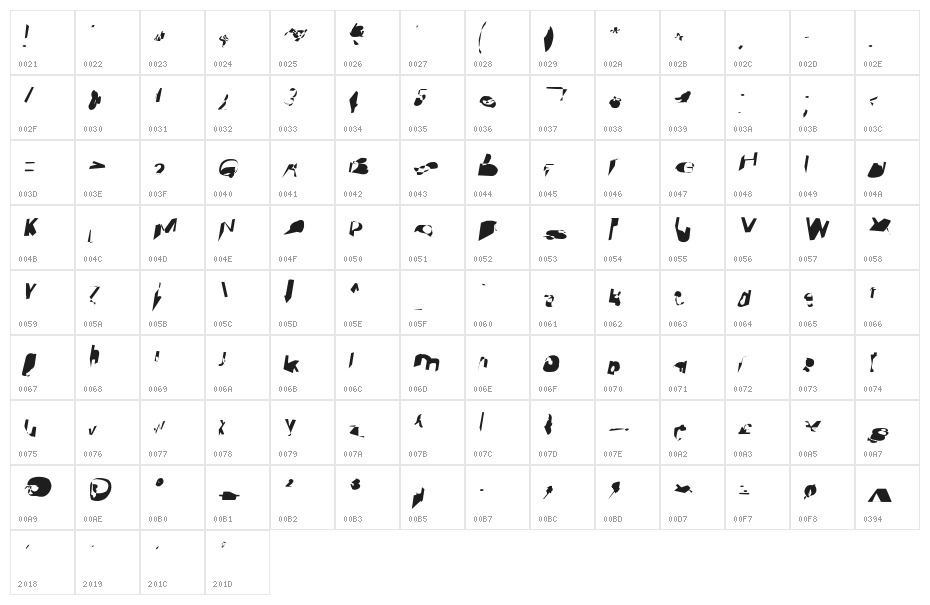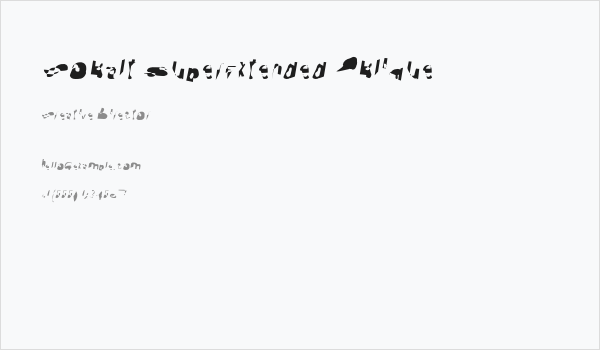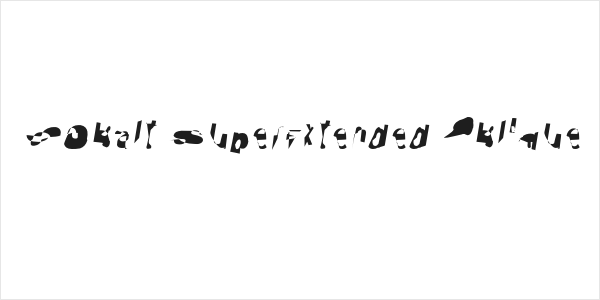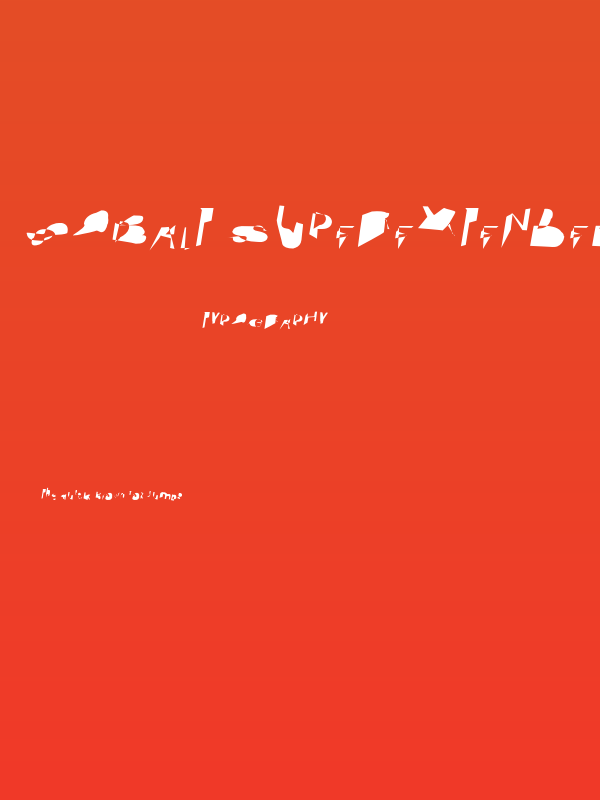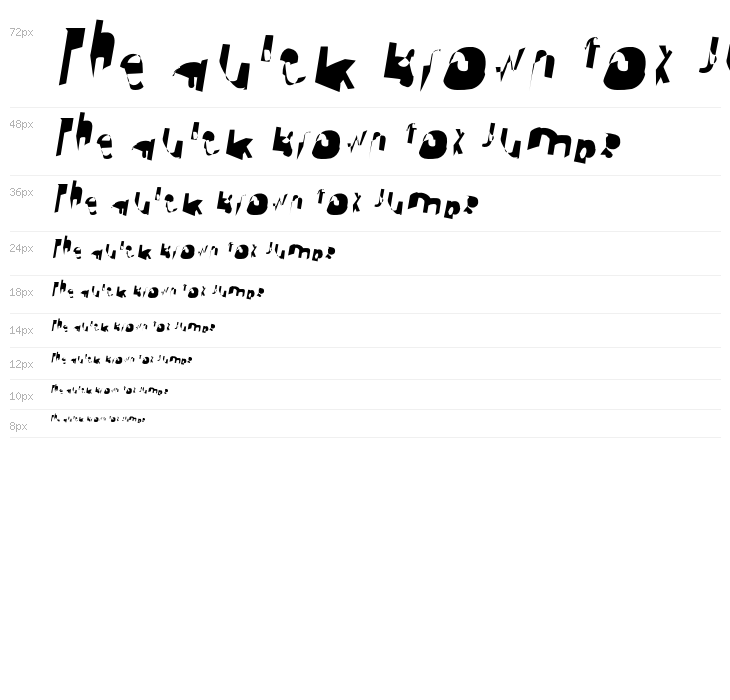
Cobalt SuperExtended Oblique Font
Cobalt SuperExtended Oblique Description
This font exhibits a highly abstract and distorted style, characterized by its fragmented and irregular shapes. The letters appear to be deconstructed and scattered, creating a chaotic yet intriguing visual effect. The uppercase and lowercase letters, as well as numbers and special characters, all share this unique, fragmented appearance. The font's design is bold and unconventional, making it stand out with its artistic and avant-garde aesthetic. It challenges traditional readability, instead offering a visually stimulating experience that draws attention through its distinct and artistic form.
| Overall Style | Modern, Artistic |
| Use Case | Logos, Posters, Artistic Projects |
| Proposed Projects | Ideal for experimental design projects, artistic posters, album covers, and avant-garde branding. |